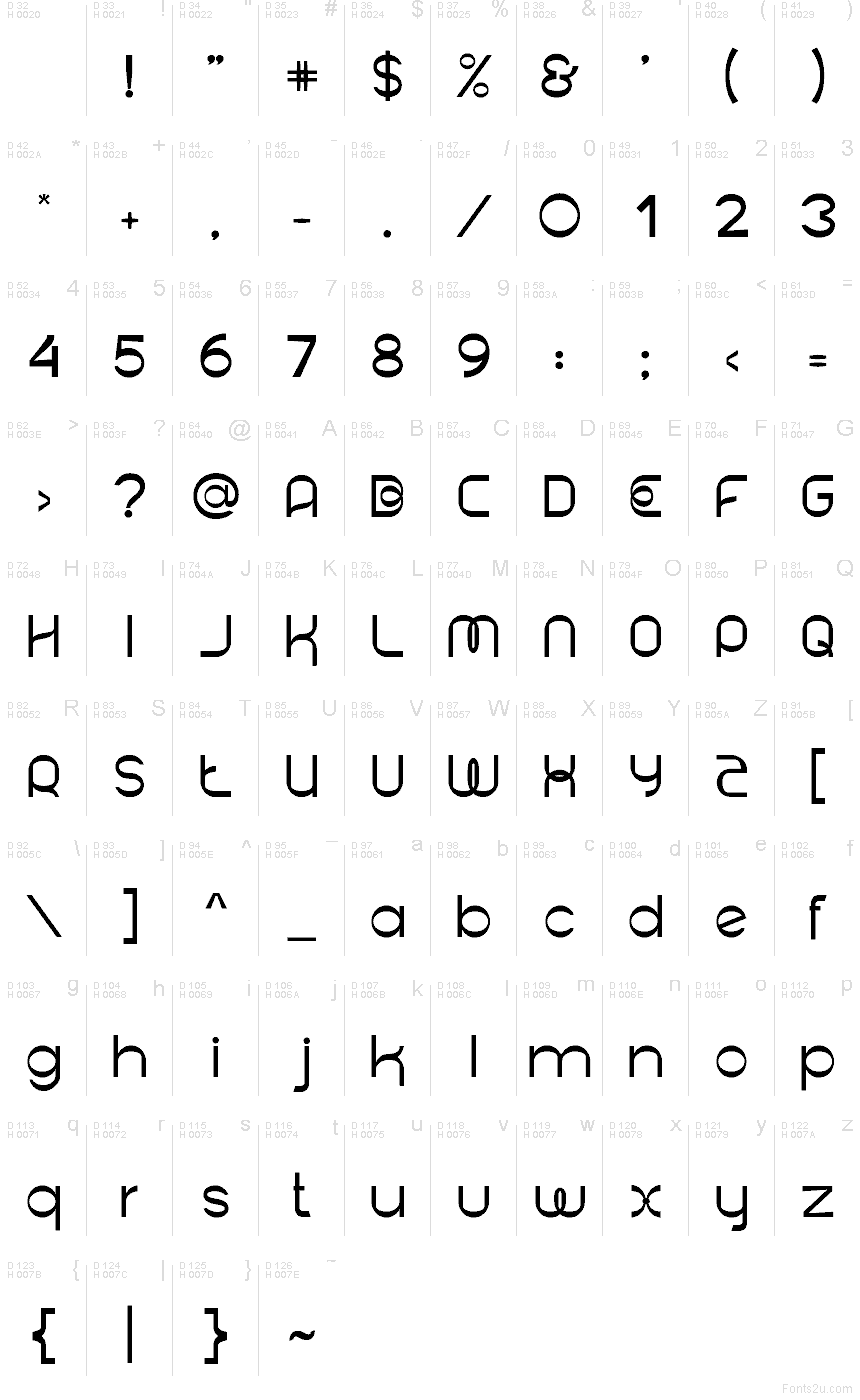
BAKEGO
Bakego font by Enxyclo Studio is a free retro display typeface with a slick, tubular rhythm that feels like bent neon tubing frozen in ink. Each letter loops and curls with rounded corners and smooth inner curves, creating a continuous, almost monoline flow that’s bold but surprisingly friendly. The tight geometry and open counters give Bakego a clean, futuristic twist on 70s-inspired lettering, so it reads like vintage signage wired for a modern screen.
Using Bakego, you get a showpiece wordmark that instantly stands out on logos, posters, packaging, social media graphics, event titles, and bold website hero text. This free font shines when you set it big and let the looping forms breathe, then pair it with a simple sans serif for body copy to keep layouts balanced and readable.